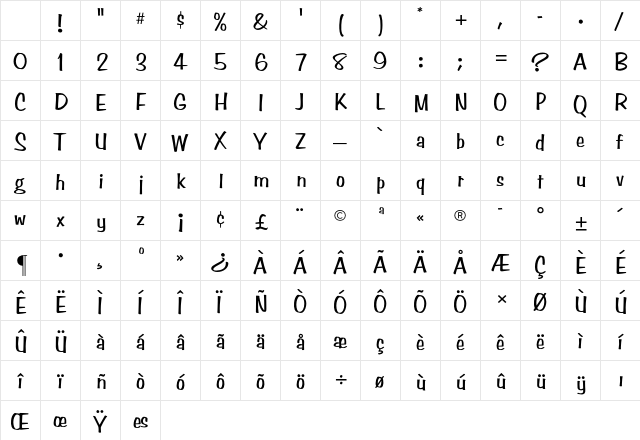
Complete Benguiat Frisky CG Regular glyph index. Displaying only characters natively supported by Benguiat Frisky CG Regular font.
Benguiat Frisky CG is a composed and adaptable typeface that performs quietly and consistently across a wide range of design contexts.